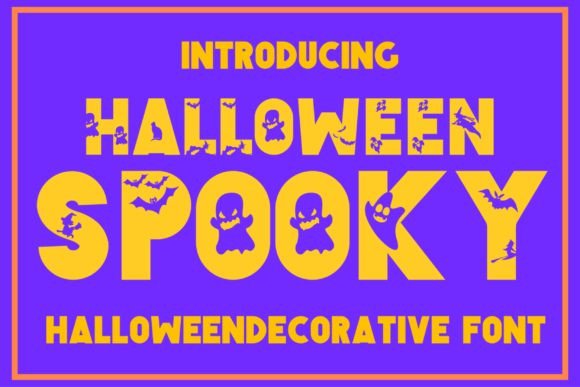
Prepare yourself for the spookiest season with our spine-tingling Halloween Spooky Font! This eerie and enchanting font is the perfect addition to your Halloween creations. With its wickedly charming curves and spine-chilling details, Halloween Spooky will cast a spell on all who lay eyes upon it.
Crafted by the masterminds at Cheetah Doodle, this font is a masterpiece of digital devilry. Its intricate design and otherworldly aesthetic will add a touch of wicked whimsy to your Halloween designs. Whether you're creating invitations, decorating your website, or personalizing your social media, Halloween Spooky will make your creations scream with delight.
Imagine the spine-tingling effect of your Halloween party invitations adorned with this hauntingly beautiful font. Your guests will be spellbound by the eerie elegance of the letters, setting the perfect tone for a night of tricks and treats. Or, let your website cast a web of intrigue with Halloween Spooky, captivating visitors with its dark and enchanting allure.
The possibilities are endless with Halloween Spooky. Its versatility knows no bounds, allowing you to create spellbinding designs that will make your Halloween truly unforgettable. So, embrace the spirit of the season and let Halloween Spooky be your font of choice for all your spine-chilling creations!